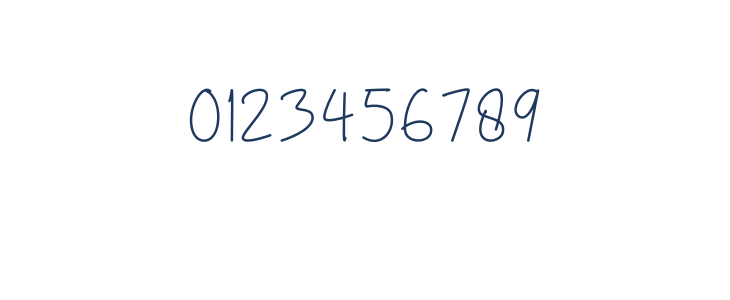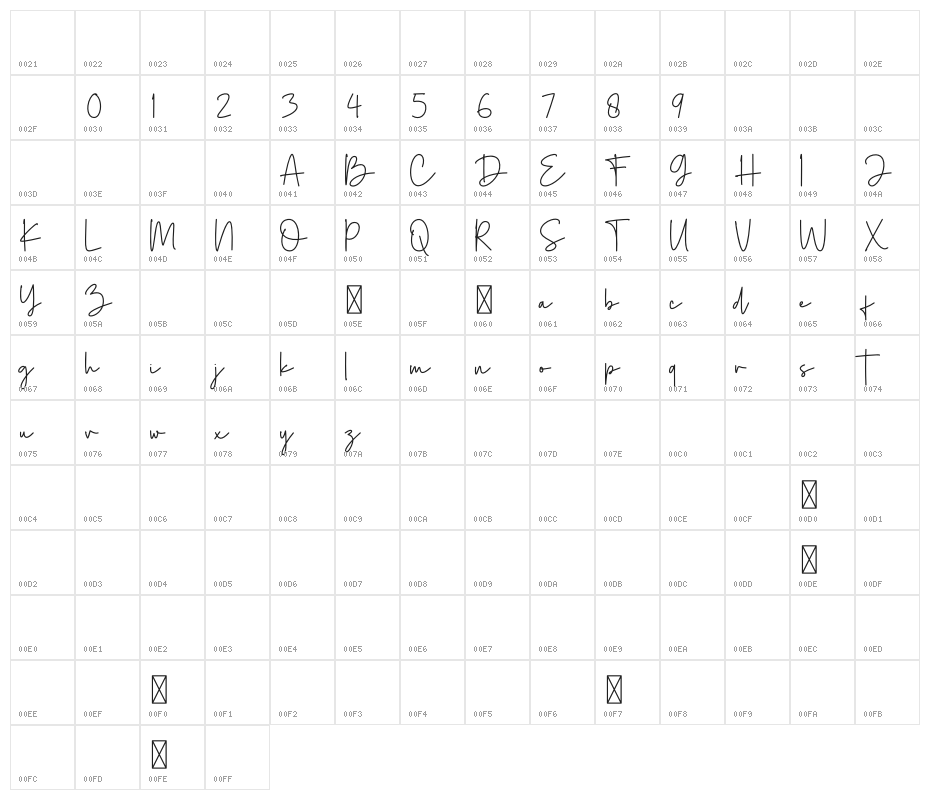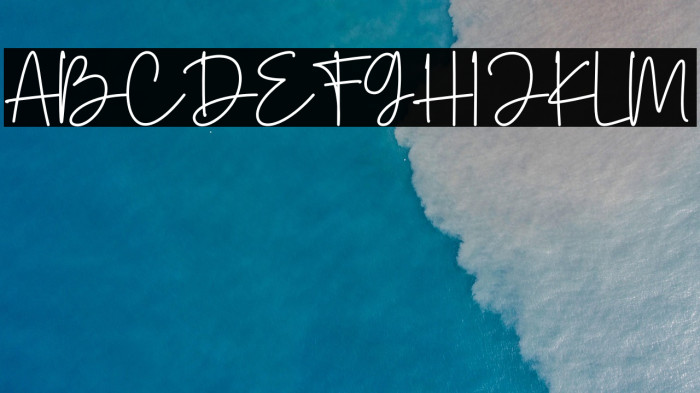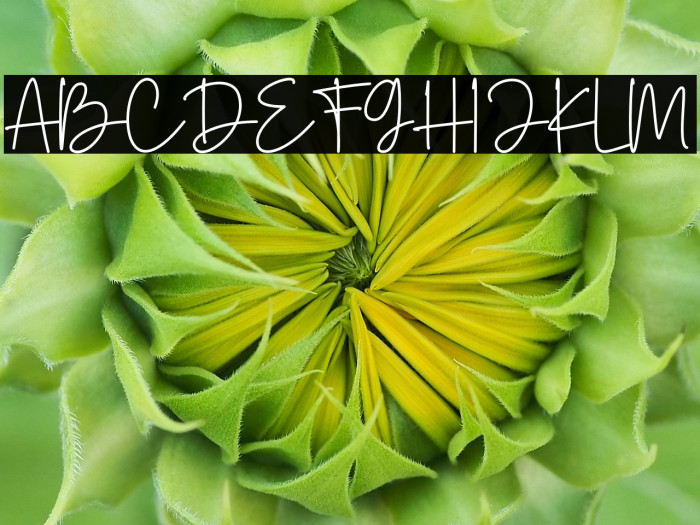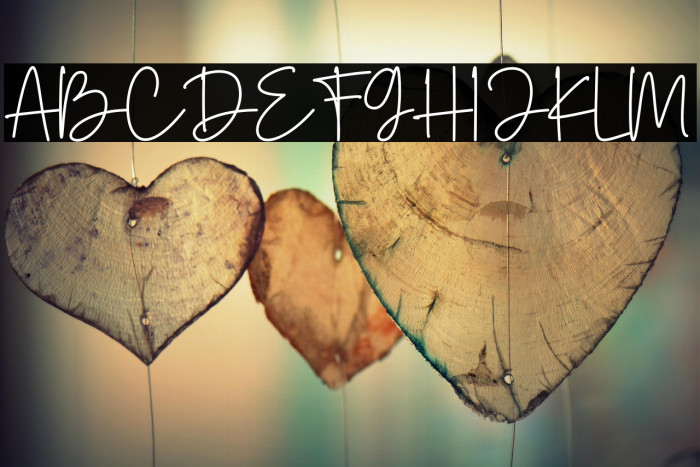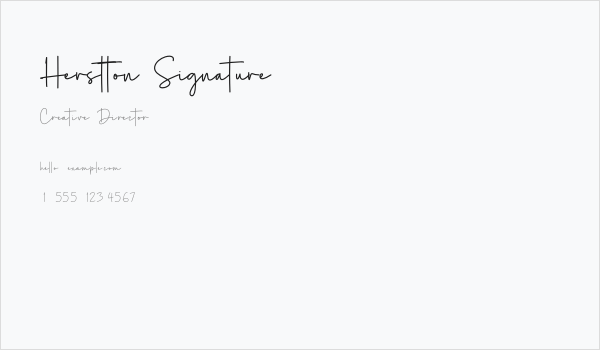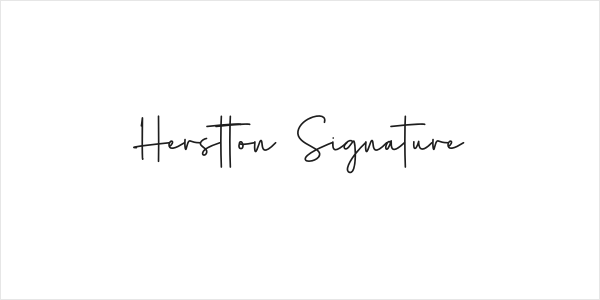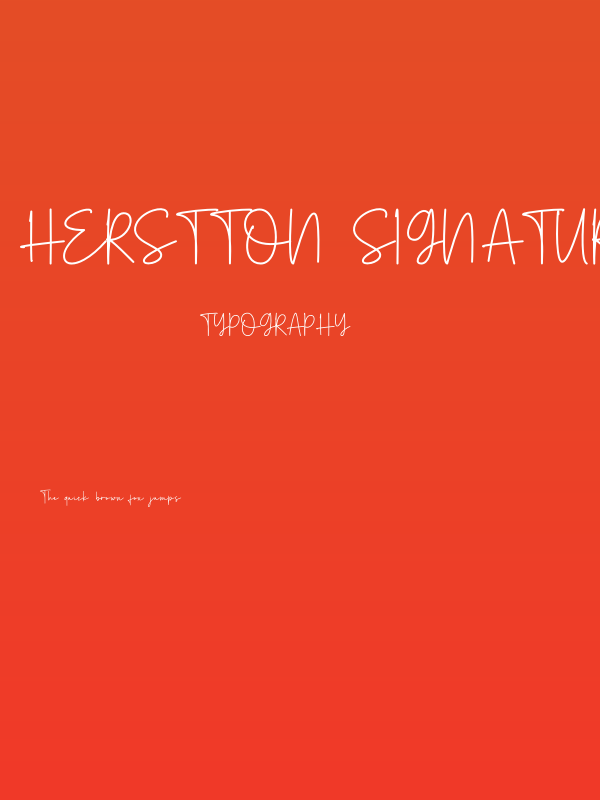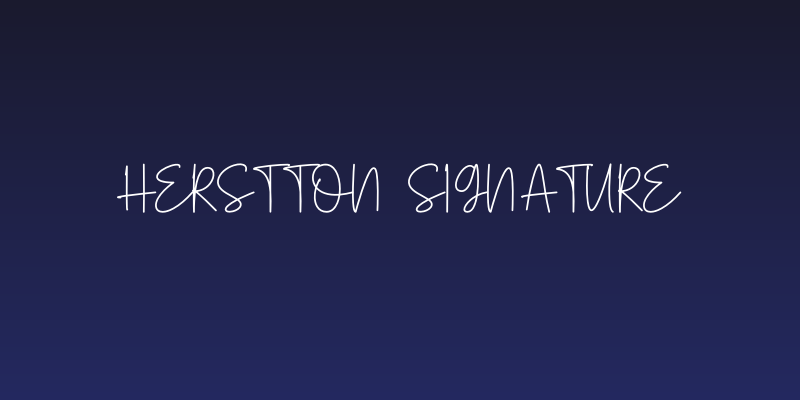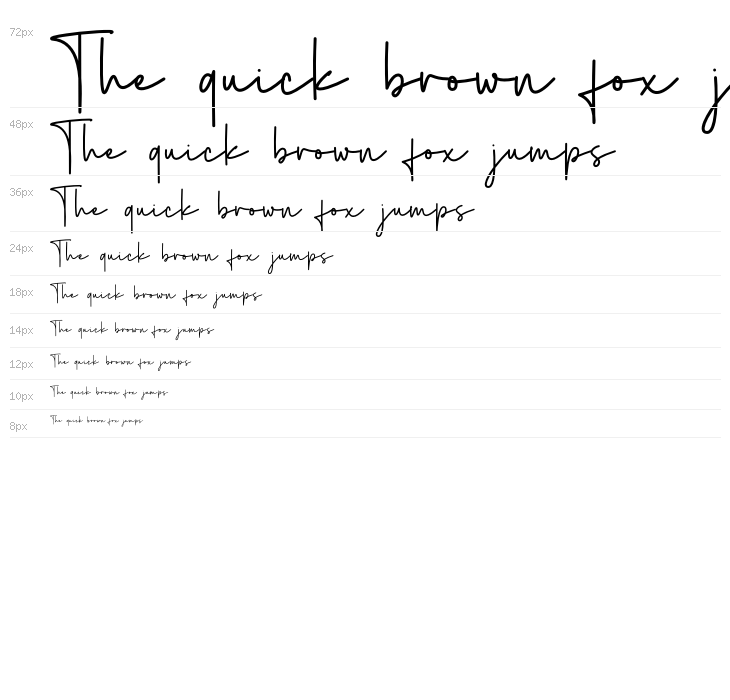
Herstton Signature Font
Herstton Signature Description
This font exudes a modern, handwritten style with a casual and elegant flair. The uppercase letters are tall and slender, with a slight slant that adds a dynamic feel. The lowercase letters maintain a consistent flow, with smooth curves and a natural, handwritten appearance. The numerals are clear and legible, matching the overall style of the letters. The special characters blend seamlessly, maintaining the font's cohesive look. This font is perfect for projects that require a personal touch, such as invitations, greeting cards, or branding materials.
| Use Case | Logos, Headlines, Personal projects |
| Proposed Projects | Ideal for invitations, greeting cards, branding, and personal projects. |